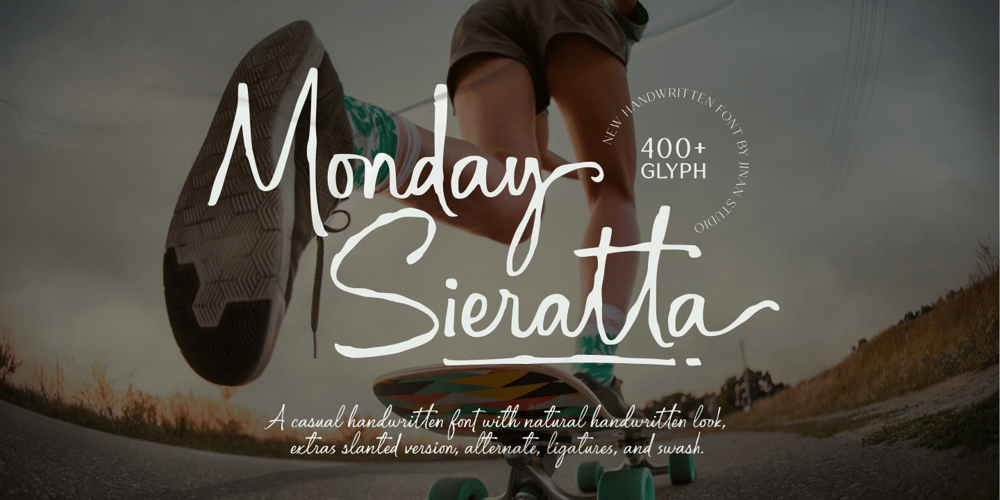
Monday Sieratta Font Family was designed by Andi Syahdang, Ainun Jinan and published by Jinan Studio. Monday Sieratta contains 2 styles and family package options. Introducing Monday Sieratta, a casual handwritten font designed to bring an organic feel to your projects. With its assortment of over 400 unique glyphs, it’s an entire typography universe in one font. Not only does it come with a stylish slanted version, but it also boasts an ensemble of alternate characters, ligatures, and swashes to fuel your creativity. Ideal for everything from greeting cards and invitations, to posters and logos, this font effortlessly infuses a personal touch into every design. With Monday Sieratta, your typography will echo a charmingly relaxed, yet strikingly professional vibe.Features A set of uppercase and lowercase glyphs Number, symbol, and punctuation Multilingual Support Alternates, ligatures, and swashes Slanted Version PUA encoded Type j_1 until j_16 to features swash, ligatures will automatically replace the standard letter pairs whenever available, when using any OpenType capable software.